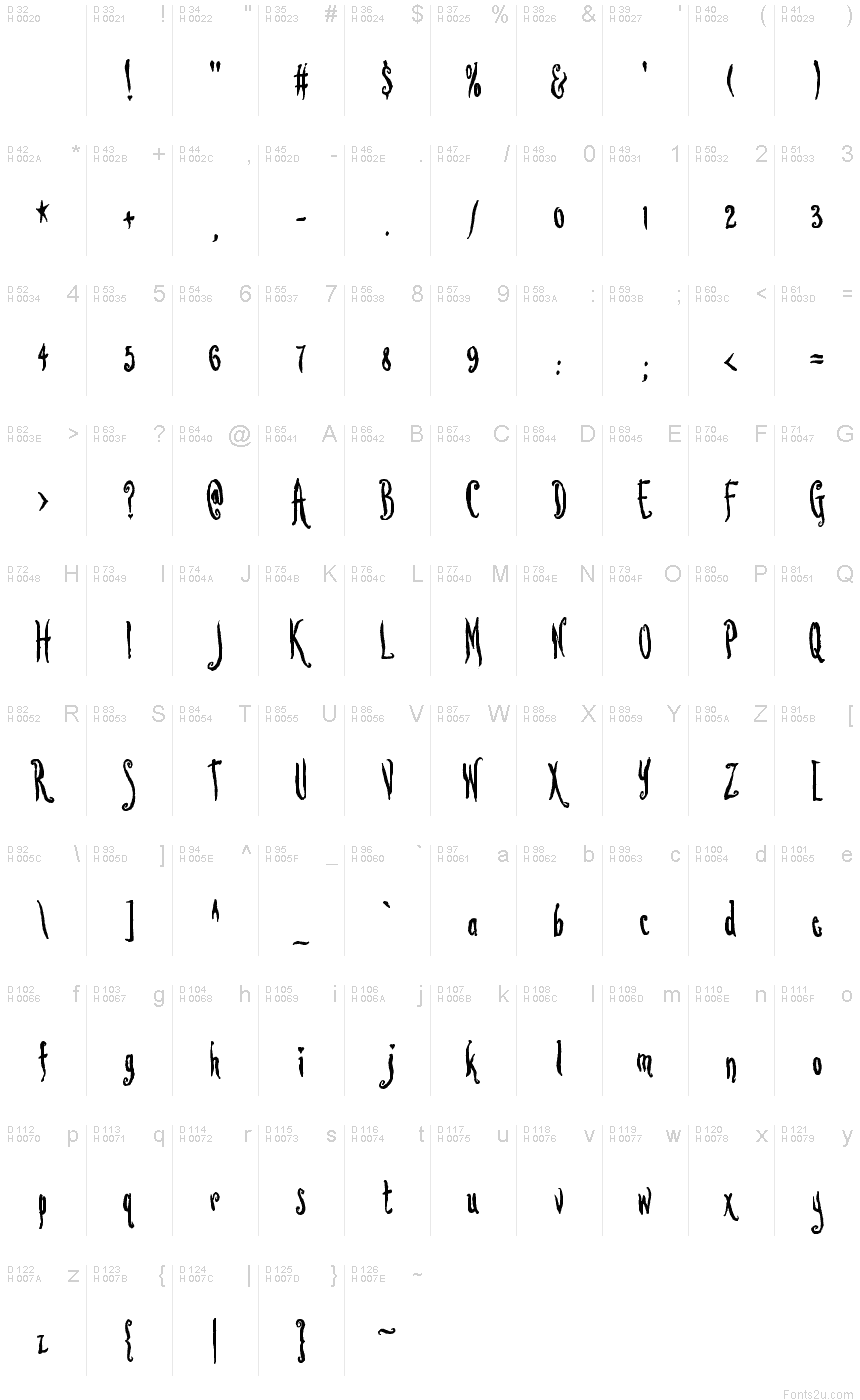
Lovesick AOE font by Astigmatic (AOETI) is a free distorted display font with a rough handwritten shape and uneven, stretched strokes. The letters feel slightly warped and irregular, with narrow forms, loose curves, and a cut-and-drawn texture that gives the set a raw, handmade edge.
Lovesick AOE works well for poster titles, album art, zines, logo marks, event flyers, and invitation text when you want something that looks sketched rather than polished. This free font fits projects that benefit from an offbeat personal touch, especially romantic graphics, indie branding, and expressive editorial accents.